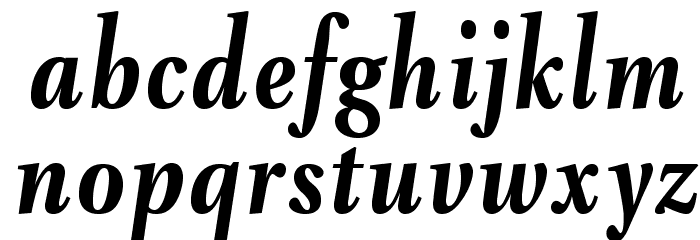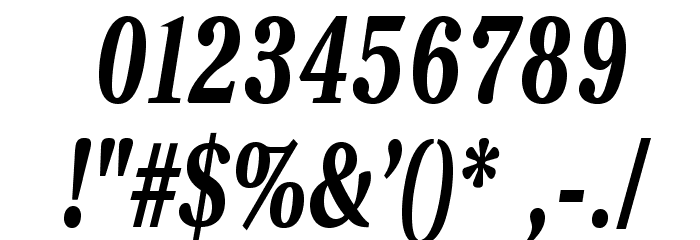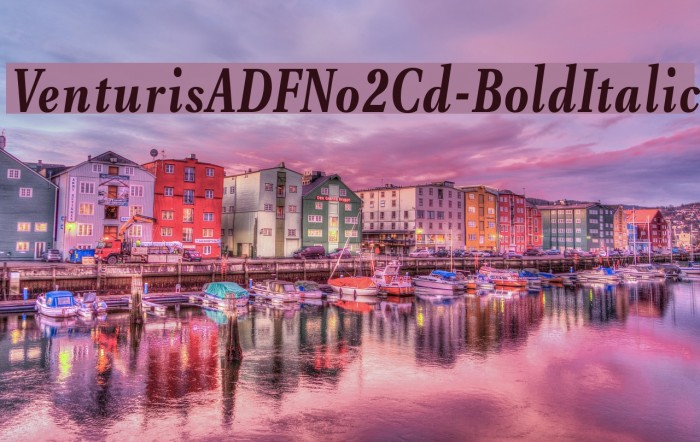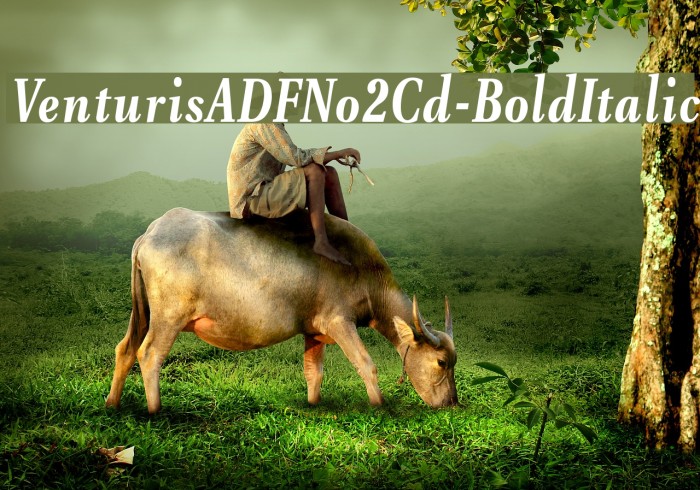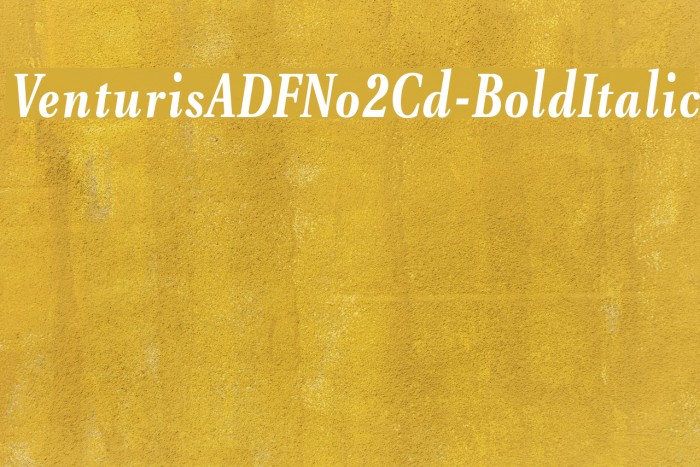
VenturisADFNo2Cd-BoldItalic Font
This font features a classic serif style with a bold and italicized appearance, giving it a strong and elegant look. The characters are well-defined with a slight slant, enhancing the italic effect. The serifs are pronounced, adding a touch of sophistication and tradition. The uppercase letters are tall and commanding, while the lowercase letters maintain a consistent flow. Numerals are clear and distinct, making them easily readable. Special characters are designed to match the overall style, ensuring uniformity across all text elements.
A bold, italic serif font with a classic and elegant style.
- Proposed Projects: Ideal for book covers, formal invitations, branding, and editorial design.
- Category: Serif
- Overall Style: Classic
- Use Case: Headlines, Body text, Logos